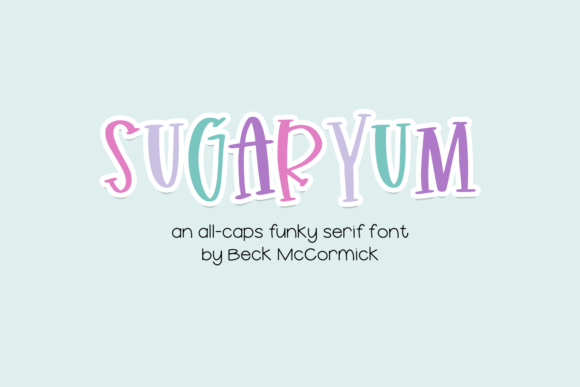
Introducing Sugaryum Font - the Best Font for Draw on Cricut! Created by the talented BeckMcCormick, this vibrant and playful serif font is a must-have for any designer looking to add a fun and colorful twist to their projects.
Sugaryum Font is the perfect combination of traditional typefaces and quirky elements, resulting in a unique and eye-catching font that will take your designs to the next level. Whether you're creating posters, logos, book covers, or any other design project, Sugaryum Font will add a touch of boldness and whimsy to your work.
What sets Sugaryum Font apart is its versatility. This font is not only visually stunning but also easy to read, making it ideal for both headings and body copy. Its bold and playful personality will capture the attention of your audience and leave a lasting impression.
- A Fun and Playful Personality: Sugaryum Font is bursting with color and personality, making it the perfect font for any project that needs a touch of whimsy.
- Perfect for Multiple Projects: This font is not limited to just one type of project. It can be used for posters, logos, book covers, and more, making it a versatile addition to your design toolkit.
- Unique and Eye-catching: Sugaryum Font is not your average serif font. Its unique combination of traditional and quirky elements makes it stand out from the crowd and leave a lasting impression.
- Easy to Read: Despite its playful personality, Sugaryum Font is also incredibly easy to read. Its legibility makes it perfect for both headings and body copy.